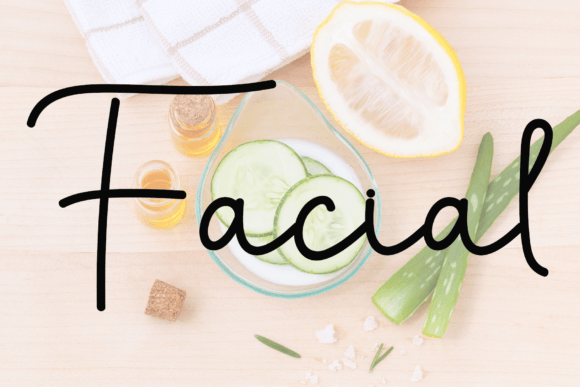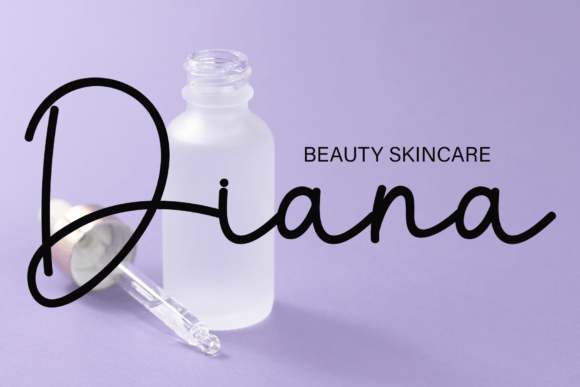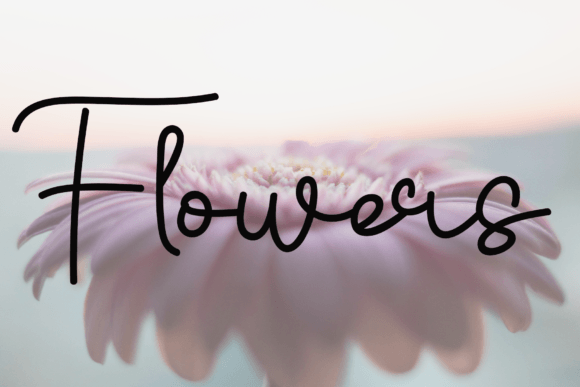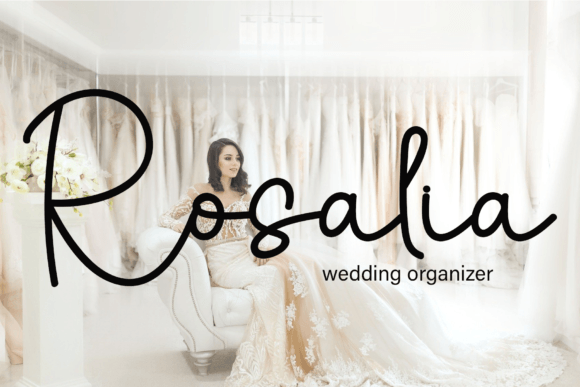
About Skincare Font
**Elevate Your Designs with Skincare Handwritten Font: Timeless Elegance and Distinct Style**
Skincare is a beautiful handwritten font that brings timeless elegance and a distinct style to your design projects. With its clean and well-crafted characters, Skincare is perfect for enhancing your favorite creative endeavors. Here’s why Skincare is an excellent choice for your design work:
1. **Timeless Elegance:** Skincare exudes a sense of timeless elegance, making it suitable for a wide range of design applications. Its handwritten charm adds sophistication to your projects.
2. **Clean and Well-Crafted:** The characters in Skincare are meticulously designed, resulting in a clean and polished appearance. This attention to detail ensures that your designs look professional and refined.
3. **Versatile Application:** Skincare’s versatility allows it to adapt to various design contexts. Whether you’re working on logos, branding materials, product packaging, or invitations, Skincare complements your vision.
4. **Distinctive Style:** Skincare’s distinctive style sets it apart from standard fonts. Its handwritten aesthetic adds a personal and authentic touch to your designs.
5. **Brand Enhancement:** If you’re developing a brand identity, Skincare can help you achieve a warm and approachable image. Its unique handwritten style resonates with audiences and leaves a lasting impression.
6. **Invitations and Events:** Create stunning invitations for weddings, parties, or special occasions using Skincare. Its elegant and clean design sets the tone for memorable events.
7. **Product Packaging:** Skincare adds a touch of sophistication to product packaging. Whether it’s cosmetics, skincare products, or gourmet treats, this font enhances your brand’s packaging.
8. **Professional Yet Friendly:** Skincare strikes a balance between professionalism and approachability. It’s suitable for businesses and projects that want to convey a sense of competence and friendliness.
9. **Easy to Work With:** Skincare is user-friendly, making it accessible to both design professionals and beginners. You can easily incorporate it into your projects and customize it to your liking.
10. **Timeless Appeal:** Skincare’s classic and timeless design ensures that your projects maintain their appeal over the years. It’s a font that stands the test of time and remains stylish.
Fall in love with Skincare’s distinct and timeless style and use it to create spectacular designs. Whether you’re working on branding, invitations, product packaging, or any other creative project, Skincare handwritten font adds a touch of elegance and authenticity that elevates your work to new heights. Bring a sense of timeless beauty to your designs with Skincare handwritten font and watch your creativity flourish.